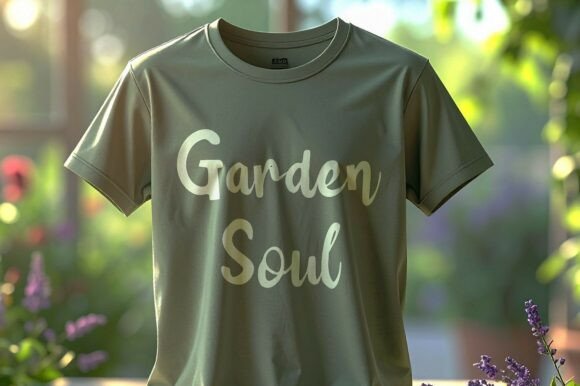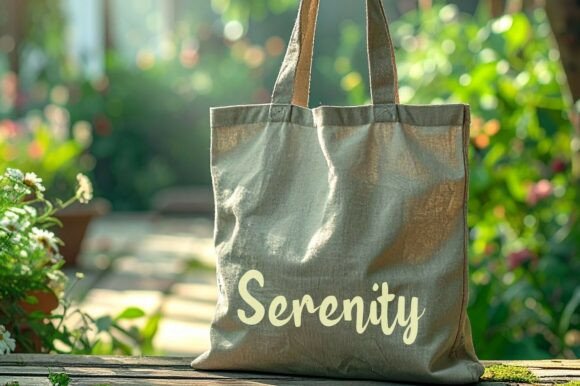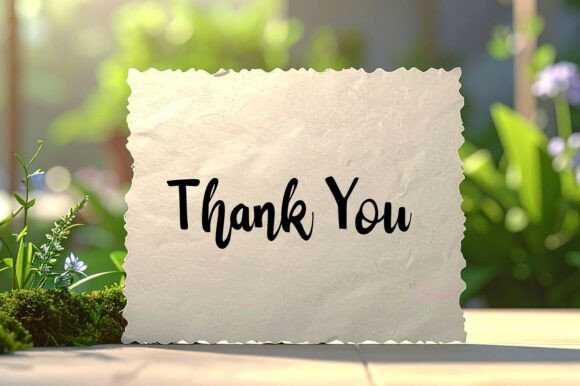
Discover the Charm of Basic Gardening Font: Elevate Your Designs with Elegance and Simplicity
When it comes to selecting the perfect font for your design project, the choices can be overwhelming. However, if you’re looking for a typeface that embodies grace, simplicity, and a touch of organic charm, the Basic Gardening font is an excellent choice. This delightful and elegant handwritten script typeface is perfect for designers and crafters seeking to add a refined yet approachable feel to their work.
The Unique Characteristics of Basic Gardening Font
The font used for ‘Basic Gardening’ stands out due to its beautifully flowing, connected letterforms that mimic sophisticated cursive handwriting. This feature gives it a unique and distinctive appearance that sets it apart from other fonts. The smooth, consistent strokes and gentle curves create a sense of calm and natural beauty, making it incredibly appealing and easy to read.
One of the key characteristics that make Basic Gardening font so special is its ability to evoke a sense of tranquility and connection to nature. The font’s elegant and refined appearance makes it perfect for projects that require a touch of sophistication and elegance. Whether you’re working on a branding project for a gardening company, a wellness product, or an artisan craft, this font is sure to impress.
What Makes Basic Gardening Font Different?
So, what makes Basic Gardening font different from other fonts? The answer lies in its unique blend of elegance and approachability. The font’s handwritten script typeface gives it a personal and artistic touch that is hard to find in other fonts. The connected letterforms create a sense of fluidity and movement, making it perfect for designs that require a sense of dynamism and energy.
Another feature that sets Basic Gardening font apart is its versatility. The font is suitable for a wide range of design projects, from branding and packaging to website design and social media graphics. Its calm and natural beauty makes it perfect for designs that require a soothing and peaceful aesthetic.
The Benefits of Using Basic Gardening Font
Using Basic Gardening font in your design project can have numerous benefits. Here are a few:
- Elegance and Sophistication: The font’s elegant and refined appearance adds a touch of sophistication to any design project.
- Approachability: The font’s handwritten script typeface gives it a personal and artistic touch that makes it approachable and relatable.
- Versatility: The font is suitable for a wide range of design projects, from branding and packaging to website design and social media graphics.
- Easy to Read: The font’s smooth, consistent strokes and gentle curves make it incredibly easy to read, even at small sizes.
Basic Gardening font is perfect for designers and crafters seeking to add a touch of elegance and simplicity to their work. Whether you’re working on a branding project, a website design, or a social media graphic, this font is sure to impress. Its calm and natural beauty makes it perfect for designs that require a soothing and peaceful aesthetic.
For designers, Basic Gardening font offers a unique opportunity to create visually stunning designs that communicate a message with softness, beauty, and a personalized, artistic touch. The font’s versatility makes it suitable for a wide range of design projects, from luxury brands to artisan crafts.
For crafters, Basic Gardening font is perfect for creating handmade products that require a personal touch. Whether you’re creating handmade cards, gift tags, or packaging, this font is sure to add a touch of elegance and sophistication to your work.
In conclusion, Basic Gardening font is a delightful and elegant handwritten script typeface that embodies grace, simplicity, and a touch of organic charm. Its beautifully flowing, connected letterforms and smooth, consistent strokes make it incredibly appealing and easy to read. Whether you’re a designer or crafter, this font is perfect for projects that require a touch of elegance, sophistication, and a connection to nature. So why not give Basic Gardening font a try and elevate your designs with its unique charm and character?